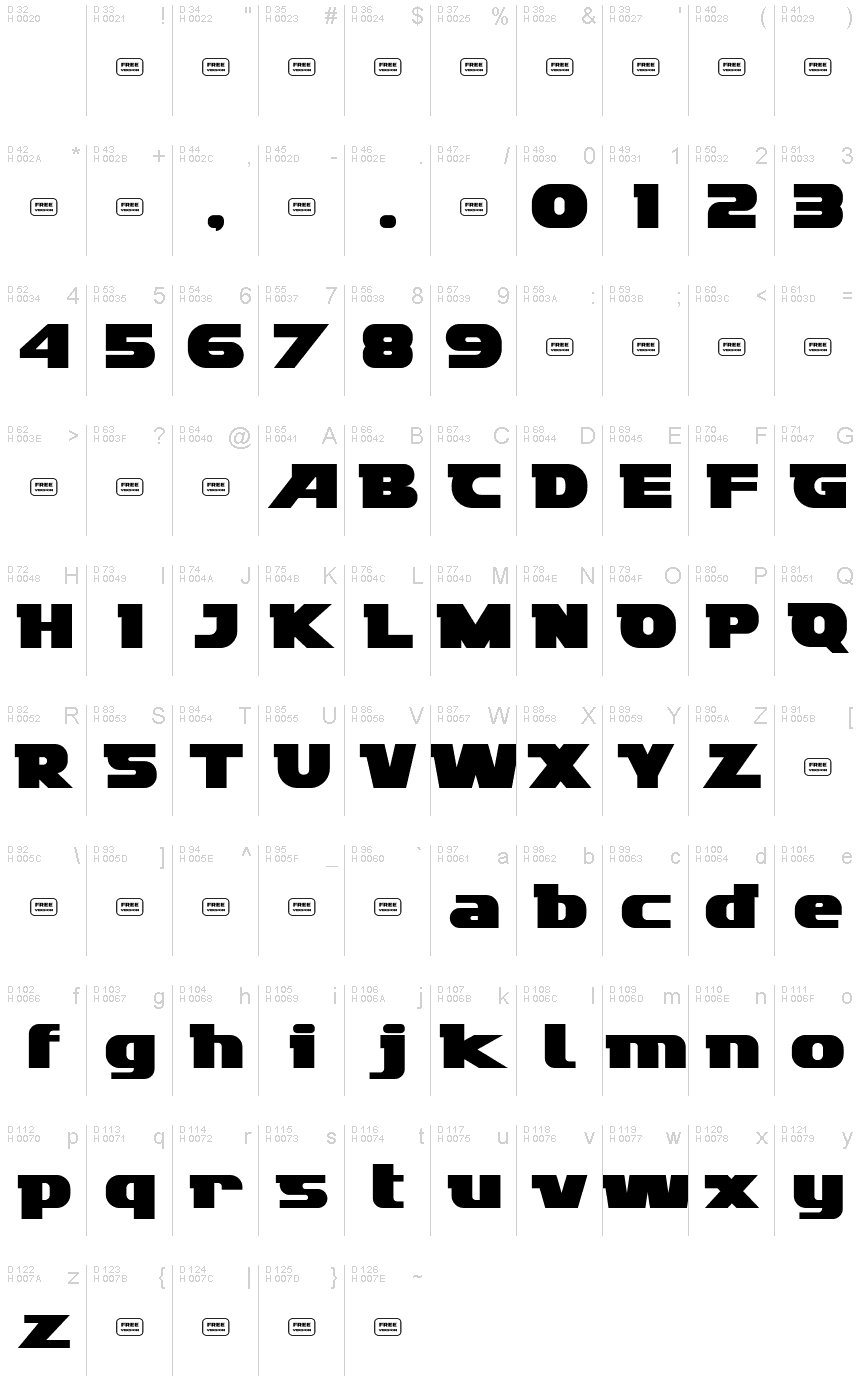
Last Mission is a bold display font with a futuristic style designed by typefactory. It is perfect for any project needing an eye-catching and unique touch, from logo designs to movie posters.
Last Mission is space futuristic font in a modern style.
Perfect for games, sci-fi themes, and space adventures!